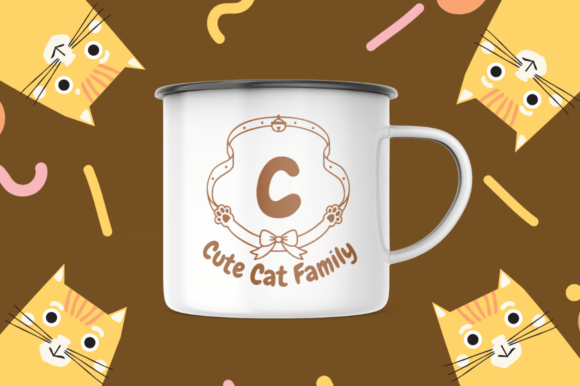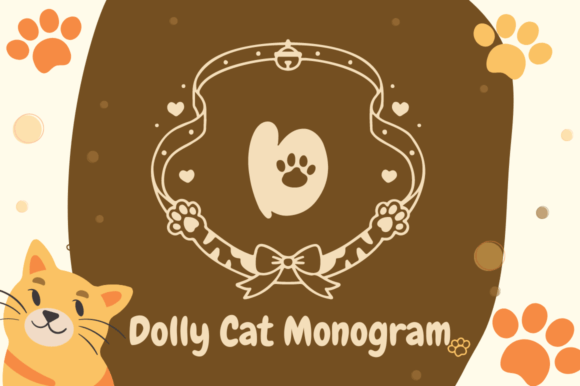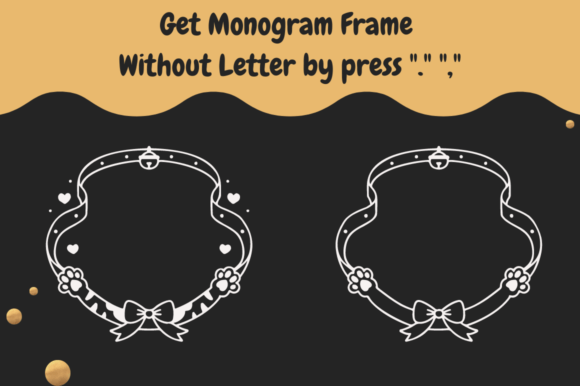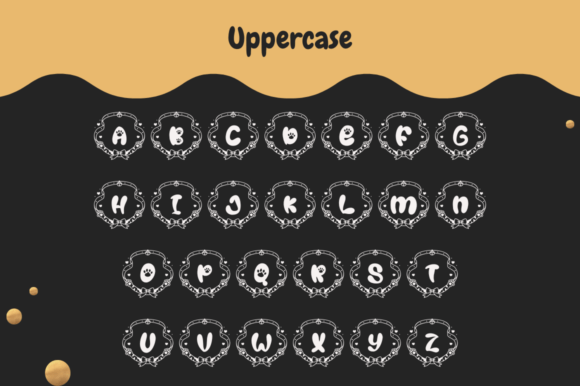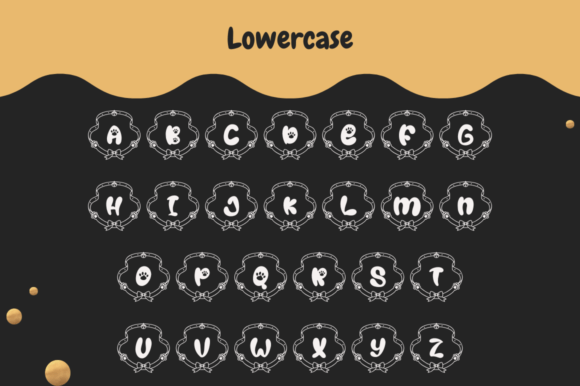
Dolly Cat Monogram Font: The Purrfect Addition to Your Design Collection
Are you a designer or crafter looking for a unique and adorable font to add to your collection? Look no further than the Dolly Cat Monogram Font! This charming font is inspired by cute cats and is perfect for creating custom gifts, textiles, and more. In this article, we’ll dive into the features and benefits of the Dolly Cat Monogram Font and explore how you can use it to take your designs to the next level.
What is Dolly Cat Monogram Font?
The Dolly Cat Monogram Font is a decorative font that is sure to delight cat lovers and designers alike. This font is specifically designed to be used for creating monograms, but its versatility means it can be used for a wide range of design projects. The font comes in two styles, which can be easily switched between by changing between uppercase and lowercase letters.
Key Features of Dolly Cat Monogram Font
- Cute and Playful Design: The Dolly Cat Monogram Font features a playful and adorable design that is sure to capture the hearts of cat lovers and designers alike.
- Two Styles in One Font: This font comes in two styles, which can be easily switched between by changing between uppercase and lowercase letters.
- Perfect for Custom Gifts: The Dolly Cat Monogram Font is perfect for creating custom gifts, including textiles, gifts for kids, and more.
Uses for Dolly Cat Monogram Font
The Dolly Cat Monogram Font is a versatile font that can be used for a wide range of design projects. Here are just a few ideas to get you started:
- Custom Gifts: Use the Dolly Cat Monogram Font to create custom gifts, such as personalized towels, blankets, and more.
- Textiles: This font is perfect for creating custom textiles, such as pillowcases, tote bags, and more.
- Gifts for Kids: The Dolly Cat Monogram Font is a great choice for creating gifts for kids, such as personalized t-shirts, mugs, and more.
- New Homeowner Gifts: This font is also perfect for creating gifts for new homeowners, such as personalized doormats, wall art, and more.
- Cat Lover Gifts: Of course, the Dolly Cat Monogram Font is also purrfect for creating gifts for cat lovers, such as personalized cat beds, mugs, and more.
Tips for Using Dolly Cat Monogram Font
Here are a few tips for using the Dolly Cat Monogram Font:
- Experiment with Different Styles: Don’t be afraid to experiment with different styles by switching between uppercase and lowercase letters.
- Pair with Other Fonts: The Dolly Cat Monogram Font pairs well with other fonts, so don’t be afraid to get creative and try out different combinations.
- Use for Branding: This font can also be used for branding, such as creating a custom logo or social media graphics.
The Dolly Cat Monogram Font is a unique and adorable font that is sure to delight designers and crafters alike. With its cute and playful design, two styles in one font, and ease of use, this font is perfect for creating custom gifts, textiles, and more. Whether you’re a seasoned designer or just starting out, the Dolly Cat Monogram Font is a great addition to your design collection.